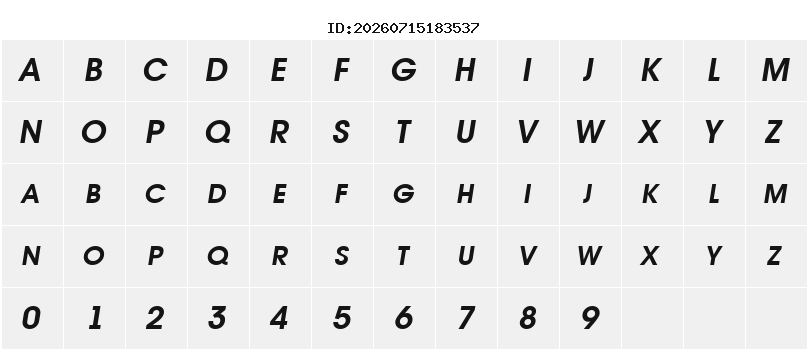
a_AvanteTitlerCpsUpC Preview
About a_AvanteTitlerCpsUpC.ttf
a_AvanteTitlerCpsUpC.ttf is a modern, elegant sans-serif font designed for ultimate readability and visual harmony. Perfect for branding, headlines, web design, and print materials.